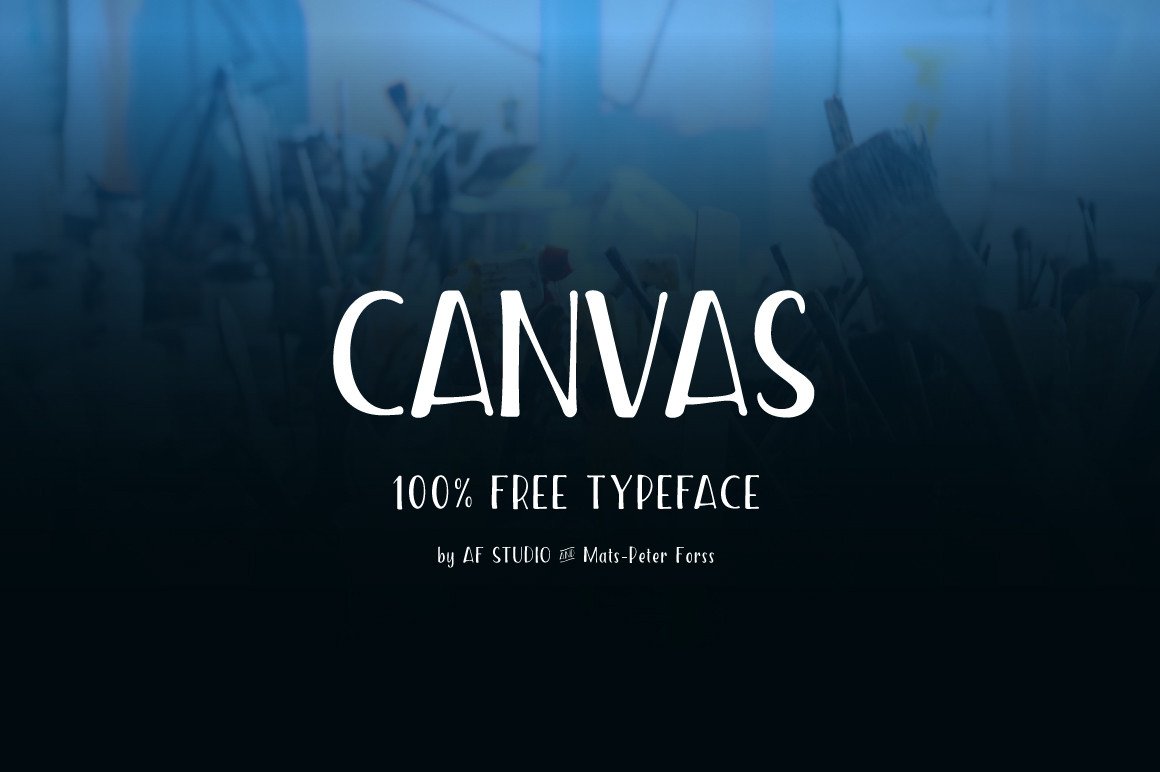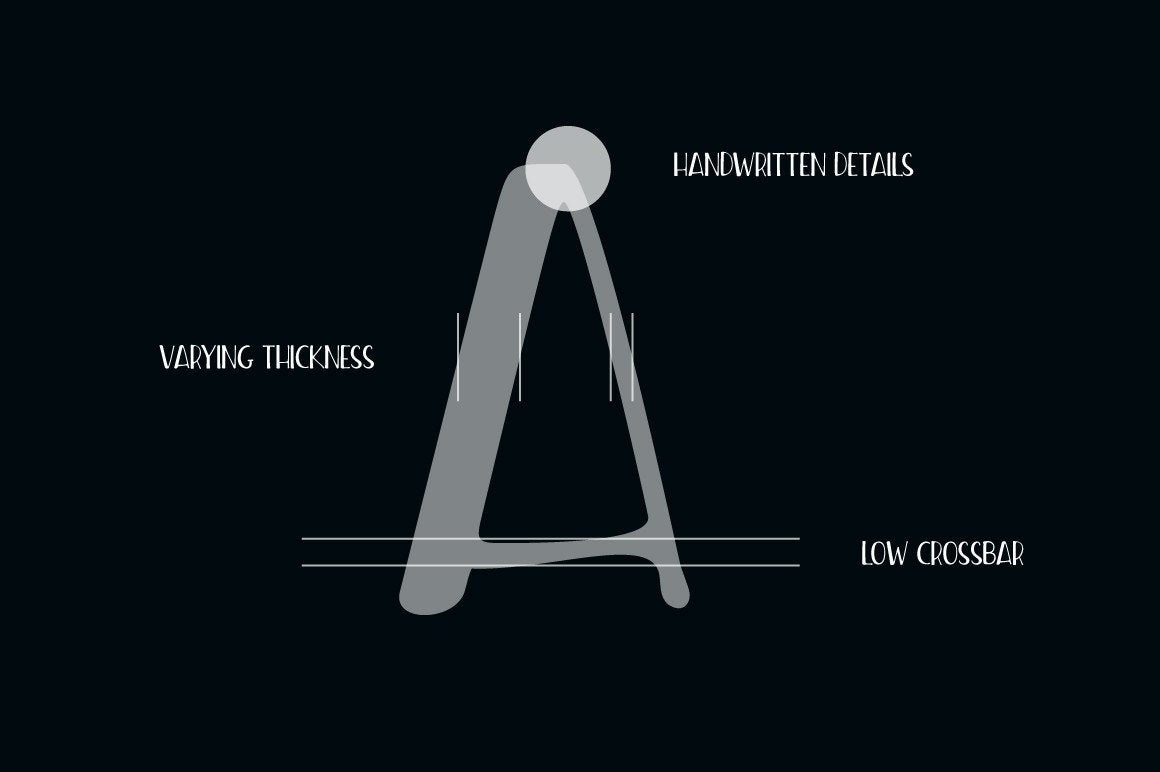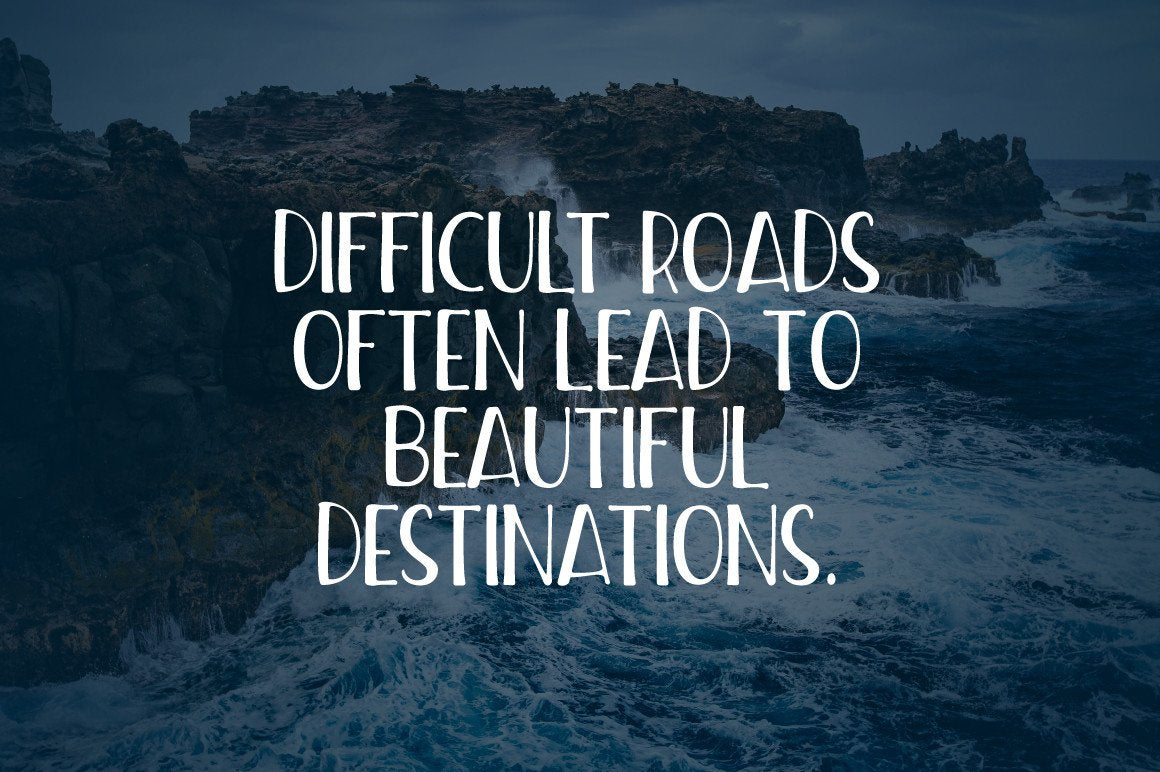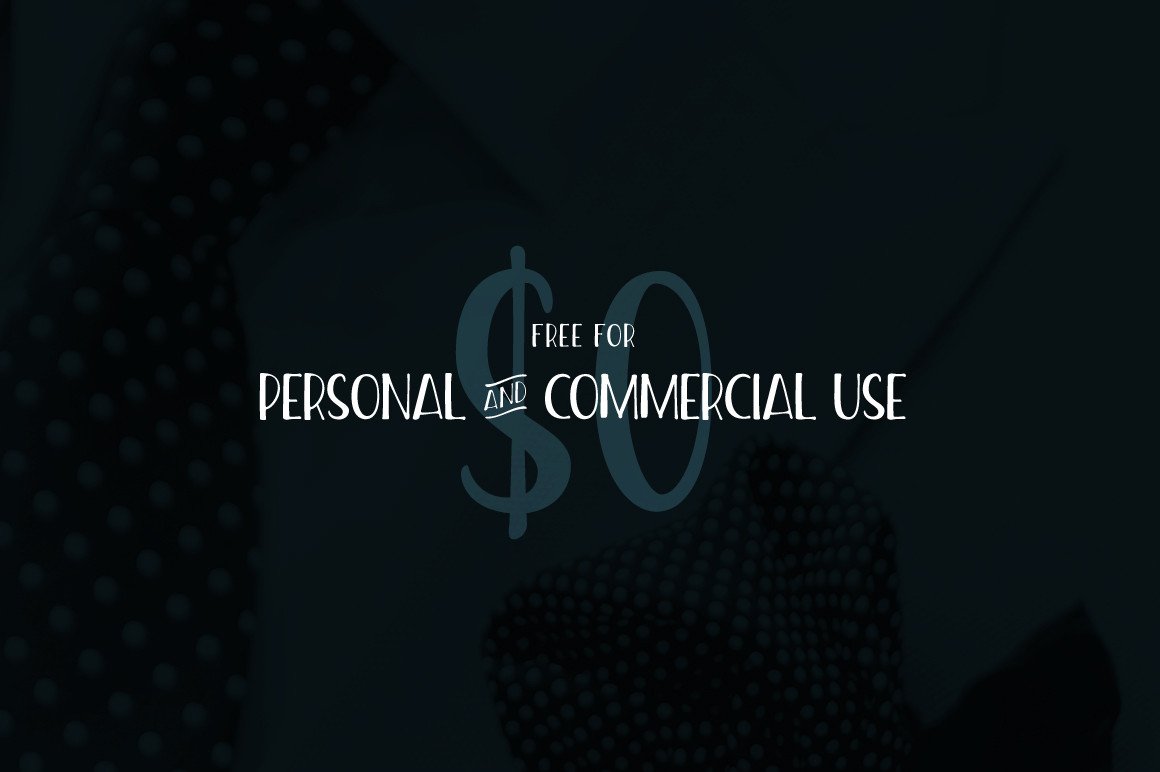
Canvas - Free Condensed Font
Take a look at this stunning font freebie by AF Studio. This is perfect condensed hand written font for any project that needs to punch with a great display! This font is the same font as The Salvador Condensed that is a part of the font family The Salvador Font Pack. So it's a premium goodie :)